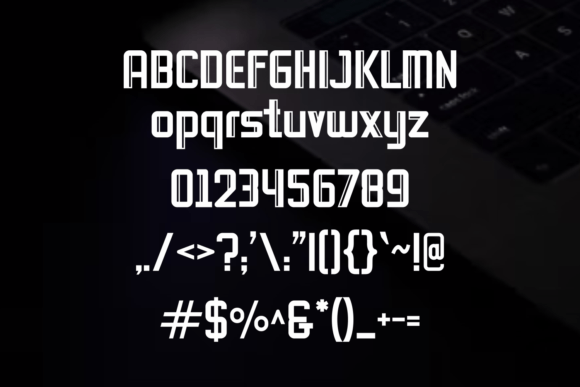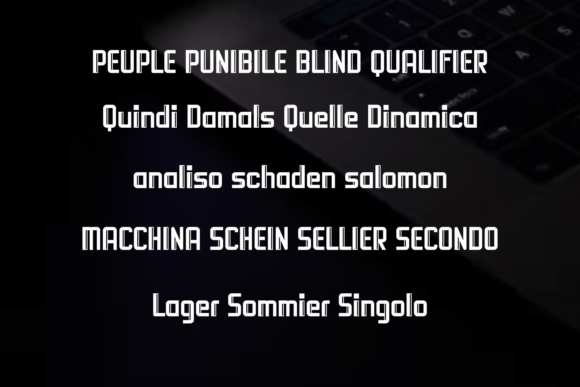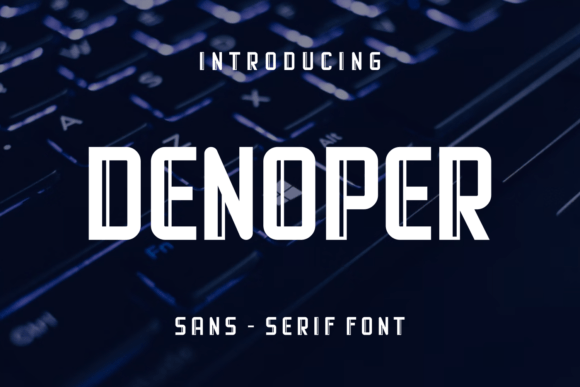
Discover the Ultimate Display Font: Denoper
Are you tired of using the same old fonts for your design projects? Look no further! Introducing Denoper, a cool and stylish display font that’s sure to take your creations to the highest levels. In this article, we’ll dive into the world of Denoper, exploring its features, benefits, and uses, and show you why it’s a must-have for designers and crafters alike.
What is Denoper Font?
Denoper is a modern display font designed to make a statement. Its unique and stylish design makes it perfect for headlines, titles, and any other text that needs to stand out. With its sleek lines and contemporary feel, Denoper is ideal for a wide range of design projects, from branding and advertising to packaging and digital media.
Key Features of Denoper Font
- Unique Design: Denoper boasts a distinctive design that’s both modern and stylish.
- Highly Versatile: This font can be used for a variety of design projects, including branding, advertising, packaging, and digital media.
- Easily Readable: Despite its stylized design, Denoper remains highly legible, making it perfect for headlines and titles.
- Scalable: Denoper looks great at any size, from small captions to large billboards.
Benefits of Using Denoper Font
So, why choose Denoper for your design projects? Here are just a few benefits of using this amazing font:
- Adds Visual Impact: Denoper’s unique design is sure to grab attention and add visual interest to your designs.
- Enhances Branding: With its modern and stylish feel, Denoper can help elevate your brand’s visual identity.
- Versatile and Flexible: This font can be used across a range of design projects, making it a valuable addition to your font library.
Who Can Benefit from Denoper Font?
Denoper is perfect for a wide range of designers and crafters, including:
- Graphic Designers: Add a touch of style to your branding, advertising, and packaging designs.
- Digital Media Designers: Use Denoper to create eye-catching headlines and titles for your websites, blogs, and social media channels.
- Crafters and Makers: Add a professional touch to your craft projects, such as handmade cards, invitations, and signage.
- Marketeers and Advertisers: Use Denoper to create attention-grabbing ads and promotional materials.
In conclusion, Denoper is a cool and stylish display font that’s sure to elevate your design projects to new heights. With its unique design, versatility, and ease of use, Denoper is a must-have for designers and crafters alike. So why wait? Fall in love with Denoper and bring your projects to the highest levels!